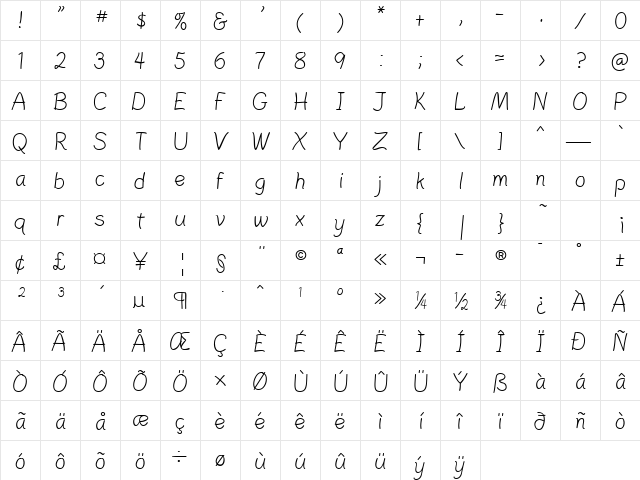
PlainPensle Plain
Design Context for PlainPensle Typeface
PlainPensle offers clean, dependable letterforms without strong stylistic allegiance, making it a practical choice for designers who need flexibility.